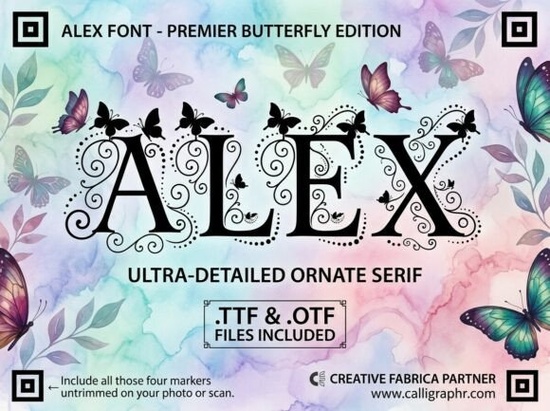
If you're looking for a serif font that feels both hand-drawn and deeply intentional like something plucked from a storybook illustration or a vintage apothecary label you’ll want to take a closer look at Alex Font. It’s not just another decorative typeface. Its fine serifs, delicate swashes, and subtle floral-inspired terminals give it a quiet confidence. It works especially well when you need elegance without stiffness think wedding stationery, small-batch skincare labels, or illustrated children’s book chapter headings.
What makes Alex Font different from other ornate serifs?
Most highly detailed serifs lean either too formal (like classic Didones) or too playful (like many script-adjacent fonts). Alex Font lands in a thoughtful middle ground. Each character has been carefully shaped not just for visual rhythm, but for readability at medium sizes (14–24 pt), which matters if you’re designing printable invitations or product tags. The lowercase “g” and “y” have gentle descenders with soft curves; the uppercase “A” and “T” include subtle leaf-like flourishes that don’t distract from legibility.
Unlike some decorative fonts that rely heavily on alternates or stylistic sets to feel unique, Alex Font builds personality into its base glyphs. You don’t need to dig into OpenType features to get charm it’s built in. That makes it friendly for beginners using Canva or Cricut Design Space, while still satisfying experienced designers who appreciate precision in spacing and contrast.
Where does Alex Font fit in real projects?
You’ll find it shines in contexts where warmth and intention matter more than trendiness:
- Fairytale or nature-themed book covers especially for middle-grade fiction or gentle nonfiction about gardens, folklore, or mindfulness.
- Invitations for intimate events, like garden weddings or baby showers, where guests expect craftsmanship and care.
- Boutique beauty branding, such as soap labels, candle packaging, or herbal tea boxes places where “handmade” is part of the promise.
- Editorial headers in print zines or seasonal newsletters, where a single headline carries tone before the reader even scans the first sentence.
It pairs naturally with clean sans-serifs (like Montserrat or Lato) for body text no clashing, no over-designing. And because it’s designed with consistent x-height and generous spacing, it holds up well in both digital mockups and physical print runs even on textured paper.
How does it compare to similar fonts on Creative Fabrica?
If you’ve already tried Mermaid Summer Font, you’ll notice Alex Font trades coastal whimsy for botanical refinement. Where Mermaid Summer leans into breezy curves and oceanic flow, Alex Font roots itself in quiet detail more cottage garden than seaside boardwalk.
Compared to Hi Summer Font, Alex Font feels less energetic and more contemplative. Hi Summer works beautifully for cheerful summer markets or festival posters; Alex Font suits slower, more intentional moments like a handwritten note tucked inside a gift box.
And while Paws Dog Font brings joyful, pet-friendly personality with bold strokes and rounded forms, Alex Font offers contrast: softer edges, finer lines, and a quieter voice. They’re complementary rather than competitive ideal if you design across niches (e.g., pet products and wellness brands).
Who’s it best for and who might want to look elsewhere?
This font suits designers who value subtlety over flash, crafters who print their own greeting cards or stickers, and small businesses building a cohesive, tactile brand identity. It’s especially helpful if you’re selling on platforms like Etsy or Shopify and want typography that supports storytelling not just decoration.
It’s less ideal if you need all-caps impact for large signage, ultra-narrow condensed use (like narrow banners), or high-contrast modern branding (think tech startups or streetwear). For those needs, you’d likely reach for something bolder or more geometric.
Also keep in mind: Alex Font is a single-style serif not a full family with bold/italic variants. So if your project requires heavy typographic hierarchy (e.g., headlines + subheads + captions all in the same font), plan to pair it thoughtfully with a neutral companion.